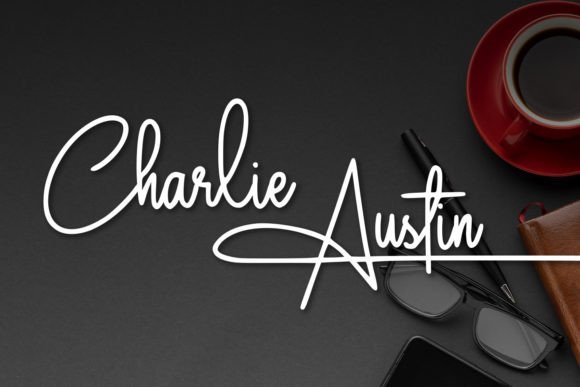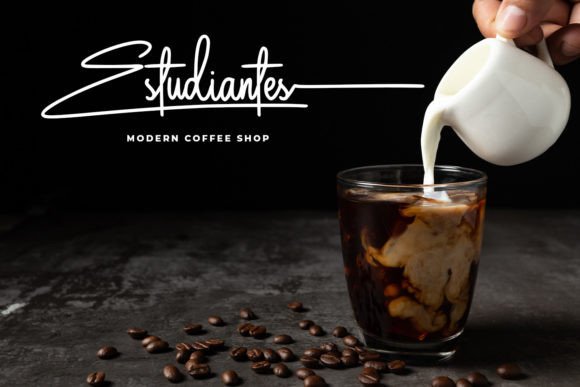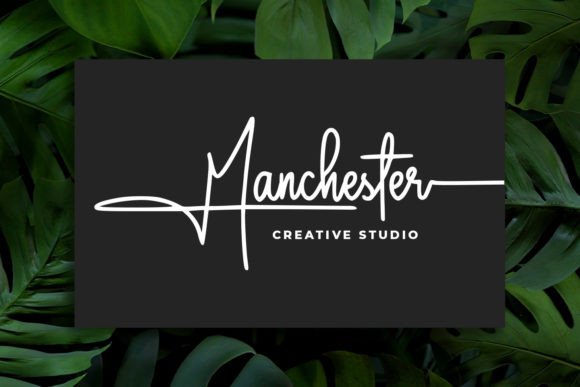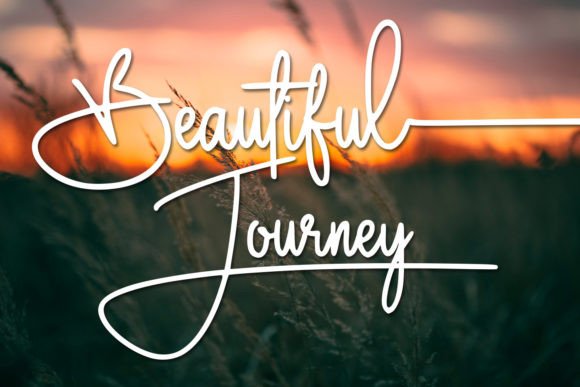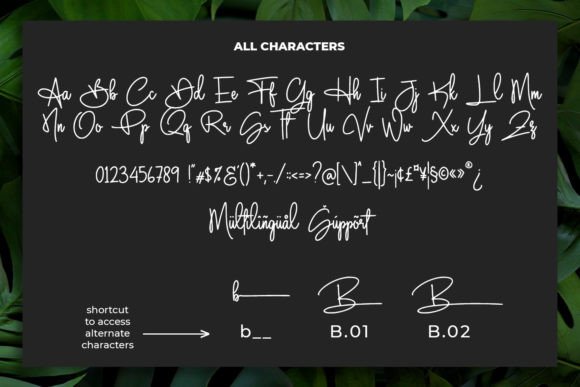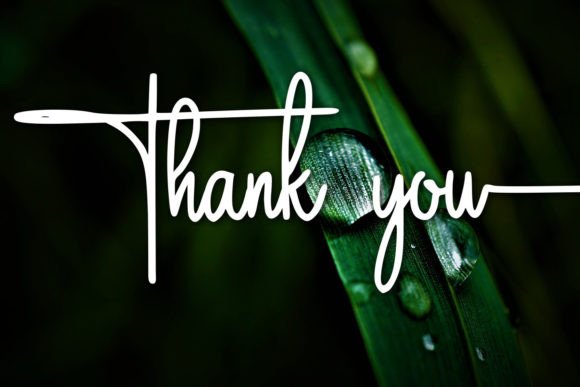
The Sweet Spot: Discovering the Charm of Buttercake Font
I’ll never forget the time I was working on a branding project for a bakery, and I was struggling to find the perfect font to capture the sweet and playful vibe of their business. The client wanted something that would make their customers feel like they’re biting into a freshly baked cookie, but I was stuck in a design rut. That’s when I stumbled upon Buttercake Font, and it was love at first sight! 💕
An Honest Review: What I Love (and What to Watch Out For)
As a designer, I’m always on the lookout for fonts that can elevate my projects and make them stand out. Here’s my honest review of Buttercake Font:
• ✨ Smooth and elegant lines: Buttercake Font has a beautiful, monoline signature style that’s perfect for creating sophisticated and eye-catching designs.
• ✅ Versatile and adaptable: This font is great for logotype, branding, packaging, t-shirt designs, tote bag designs, cards, banners, social media, and more!
• 💫 Easy to read and recognize: The font’s clean and simple design makes it easy to read and recognize, even at small sizes.
Now, no font is perfect, and Buttercake Font has a few quirks to watch out for:
• ⚠️ Limited character set: While the font has a wide range of characters, it may not have every special character or glyph you need.
• 🤔 May not be suitable for body text: Due to its elegant and cursive nature, Buttercake Font may not be the best choice for body text or long paragraphs.
The Story Behind Buttercake Font
Buttercake Font was designed by a talented type designer who wanted to create a font that would evoke the feeling of warmth and comfort. The designer’s inspiration came from traditional bakery signs, elegant wedding invitations, and vintage packaging labels. The result is a beautiful, monoline signature font that’s perfect for creating sweet and sophisticated designs.
Font Name Buttercake Font
Author Abodaniel
Is Buttercake Font suitable for body text? While Buttercake Font is beautiful and elegant, it may not be the best choice for body text or long paragraphs. It’s better suited for headings, titles, and short text snippets.